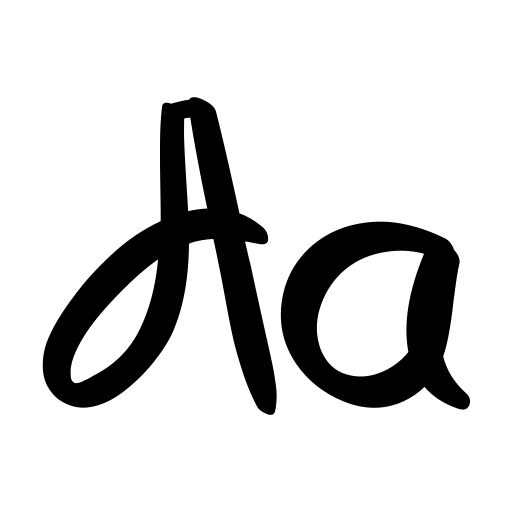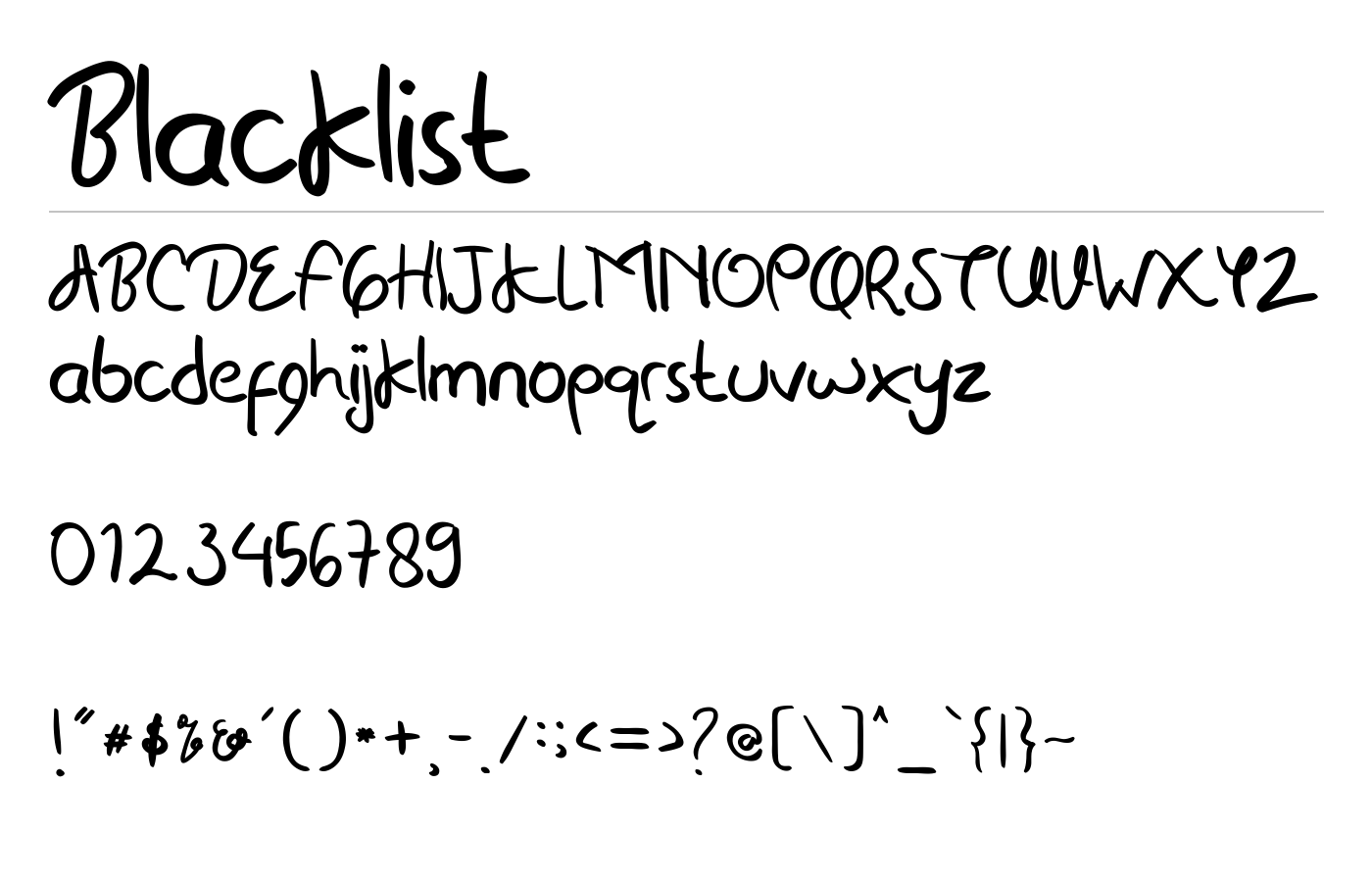
Blacklist Font is a playful and casual handwritten sans serif with a friendly, informal feel. Its irregular strokes and lively letterforms convey a sense of approachability and creativity, making it ideal for personal branding, creative projects, and fun editorial designs. This font works best where a warm, human touch is needed to engage and invite, such as in invitations, greeting cards, or lifestyle blog headers.
Blacklist Font